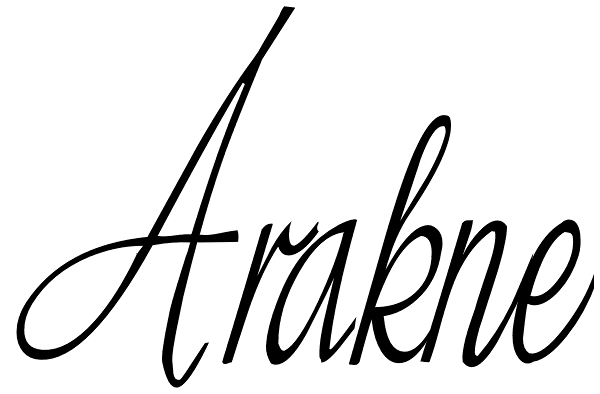
Arakne
While working on a font based on Spencerian Script (a popular late 19th century handwriting style) we did some experimenting with original designs which created the general feel of Spencerian and brought to mind the spidery handwriting of old ladies...